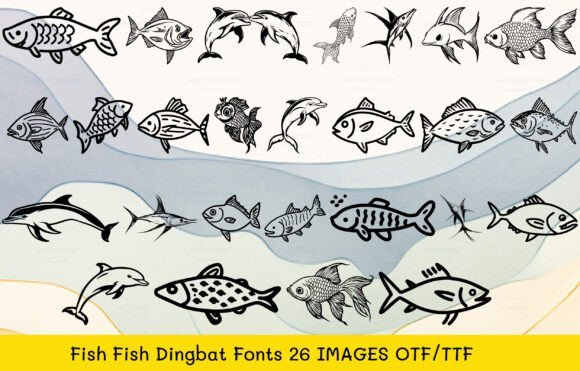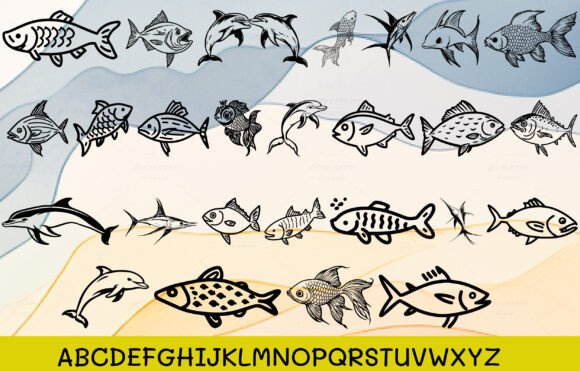
Dive into the World of Underwater Creativity
Have you ever stared at a blank page, searching for the perfect font to bring your aquatic-themed project to life? The moment of inspiration can be elusive, but what if you could tap into the whimsy of the underwater world with just a few clicks? Introducing Fish Fish Font, a delightful collection of 26 unique fish-inspired designs, each linked to a letter from A to Z.
This charming dingbats font is a treasure trove for designers looking to add a splash of underwater charm to their creations. Whether you’re working on invitations, digital scrapbooking, or creative designs, Fish Fish Font offers the perfect blend of versatility and eye-catching appeal. Its value lies in its ability to transport your audience to an underwater world of wonder and magic.
Fish Fish Font Key Features
- Unique Characteristics: The font’s unique blend of fish-inspired elements and modern design makes it perfect for creating eye-catching and memorable branding, logos, and advertising materials.
Designer Review: Fish Fish Font
Overall, I think the Fish Fish Font is an interesting addition to the world of fonts. ✨ The playful, hand-drawn style has its charm, and I can see it working well in certain contexts.
- Unique style that stands out from more traditional fonts ✨
- Works well for titles and headings where a bit of whimsy is desired
- Good for creative industries such as advertising, design, or entertainment
However, I do have some reservations about the font’s limitations. ⚠️ Here are a few things to consider:
- Readability can be a concern, particularly at smaller font sizes ⚠️
- May not be suitable for large blocks of text or body copy
- Can be overwhelming if used too extensively or in the wrong context
Overall, I’d say the Fish Fish Font is a fun, niche option that can add some personality to your design projects. But use it judiciously, and be mindful of its limitations.